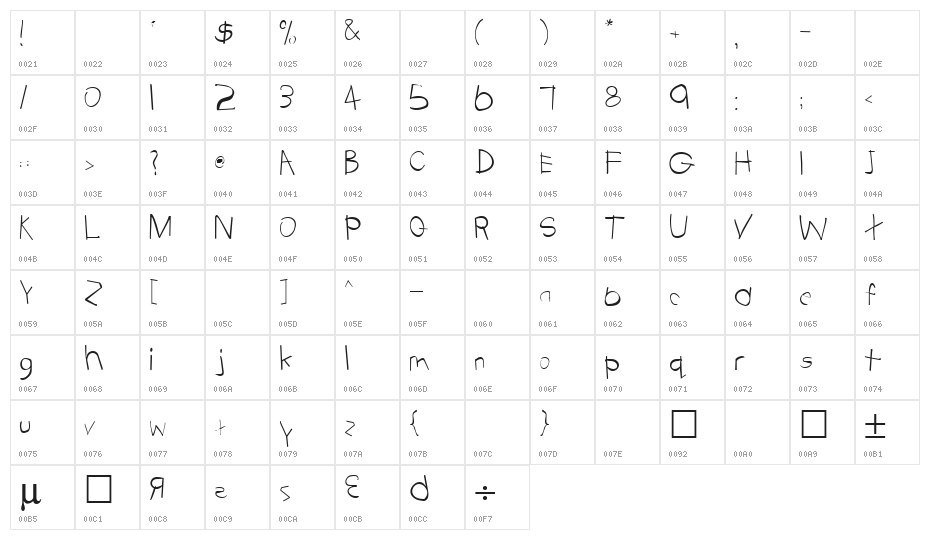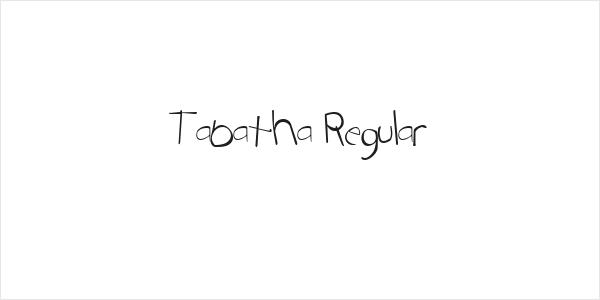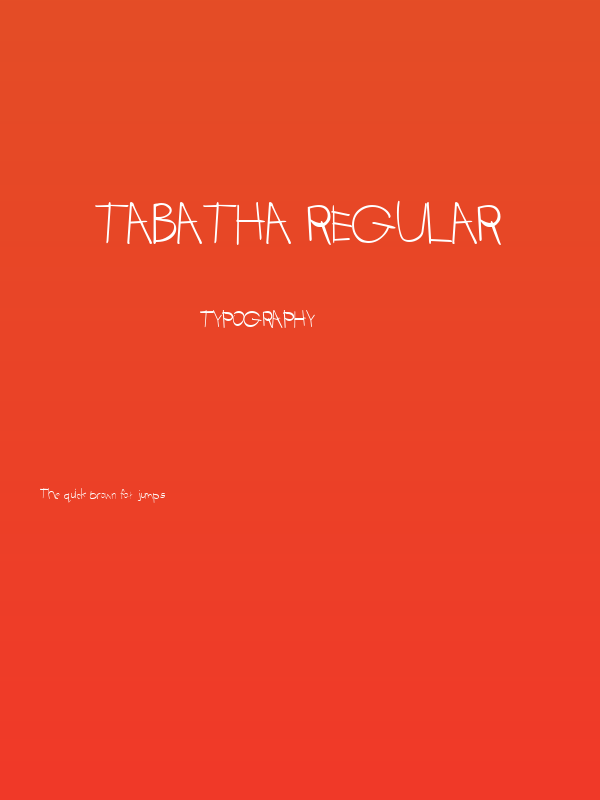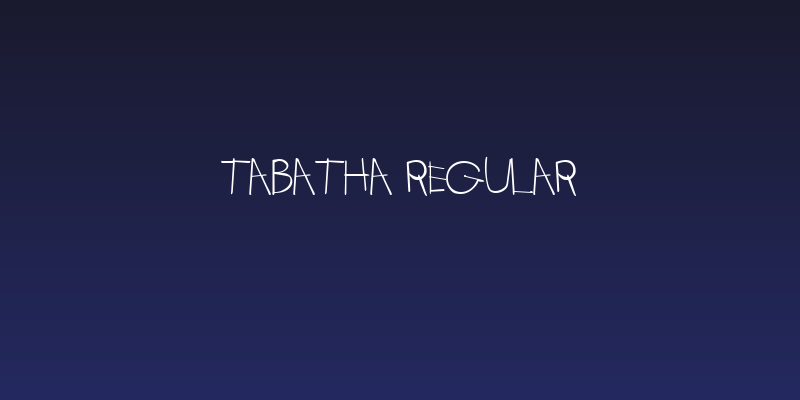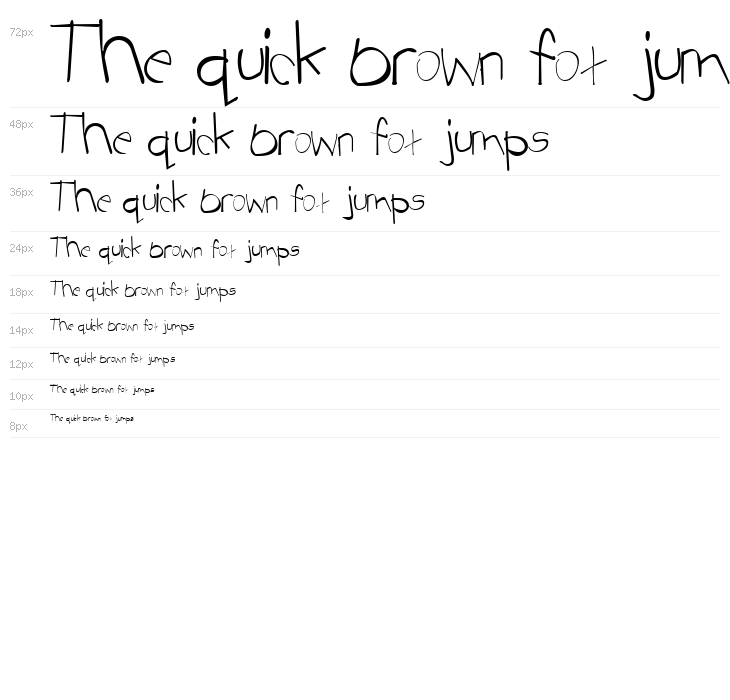
This font exhibits a playful and whimsical style with its irregular, hand-drawn appearance. The characters are tall and narrow, with a slight tilt that adds a dynamic feel. The uppercase letters are distinct with varying stroke thickness, giving each letter a unique personality. The lowercase letters maintain a consistent style, complementing the uppercase with their rounded forms. Numbers and special characters follow the same quirky design, making the font suitable for creative and informal projects. The overall look is casual and artistic, perfect for designs that aim to convey a sense of fun and creativity.
Proposed ProjectsIdeal for children's books, creative posters, greeting cards, and playful branding.